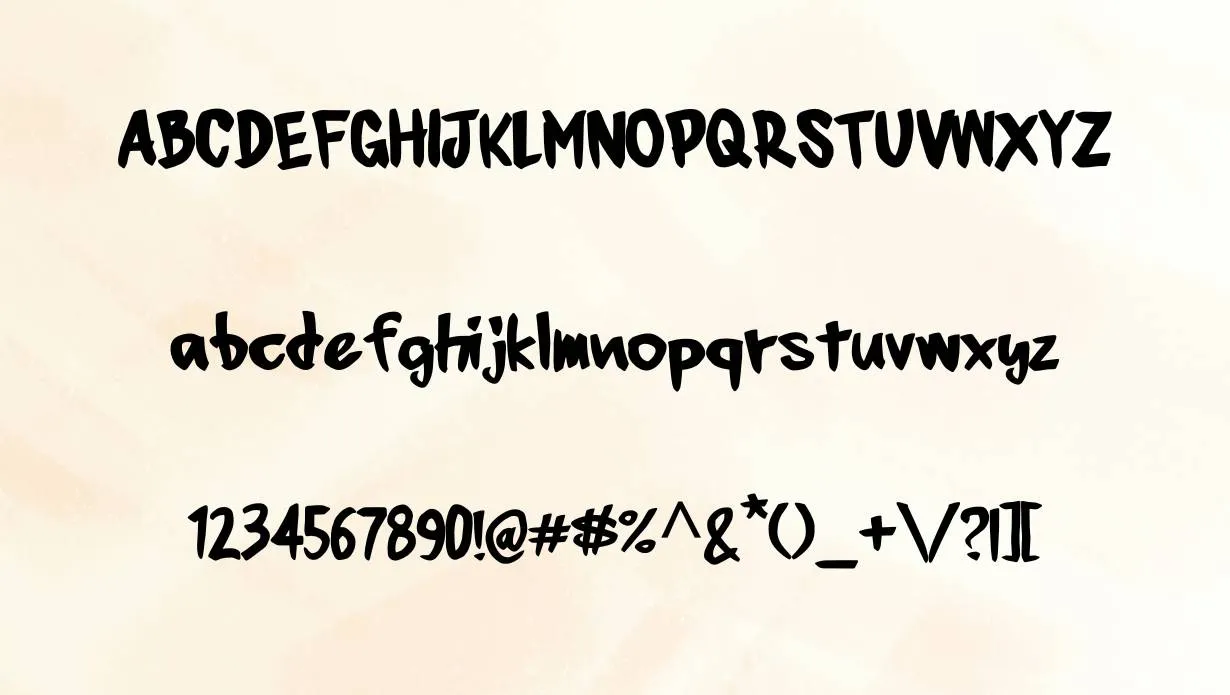
The Manoyri Marker font has a playful, informal look that resembles handwritten text. In Adobe Photoshop, create whimsical and friendly designs or casual graphics with this font. Utilize it with CSS to add a playful and approachable touch to web elements.